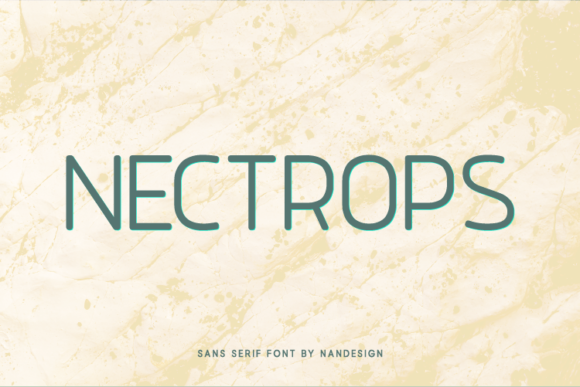
Nectrops Font: Elevate Your Design Projects with a Simple yet Stunning Sans Serif Font
In the world of typography, fonts play a crucial role in making or breaking a design project. A well-chosen font can elevate your project, making it more visually appealing and engaging for your audience. If you’re looking for a font that can add a touch of simplicity and elegance to your designs, look no further than Nectrops Font. In this article, we’ll explore the features and benefits of Nectrops, a simple and neat sans serif font that’s perfect for creating beautiful headings, gorgeous invitations, stunning logos, and more.
What is Nectrops Font?
Nectrops Font is a modern sans serif font designed to provide a clean and minimalist look to your design projects. Its simplicity and neatness make it an excellent choice for a wide range of applications, from headings and titles to logos and invitations. The font’s sleek lines and curves create a visually appealing aesthetic that’s sure to capture your audience’s attention.
Benefits of Using Nectrops Font
So, why choose Nectrops Font for your design projects? Here are just a few benefits of using this amazing font:
- Versatility: Nectrops Font is incredibly versatile, making it suitable for a wide range of design projects, from print materials like brochures and posters to digital applications like websites and social media graphics.
- Readability: The font’s clean and simple design ensures excellent readability, even at small sizes, making it perfect for body text and captions.
- Elegance: Nectrops Font adds a touch of elegance to your designs, making it ideal for creating stunning headings, titles, and logos.
- Easy to Pair: The font’s neutral design makes it easy to pair with other fonts, allowing you to create unique and harmonious typography combinations.
Creative Ways to Use Nectrops Font
Nectrops Font is an incredibly versatile font that can be used in a variety of creative ways. Here are some ideas to get you started:
- Headings and Titles: Use Nectrops Font to create stunning headings and titles that grab your audience’s attention.
- Logos and Branding: The font’s simplicity and elegance make it an excellent choice for creating logos and branding materials.
- Invitations and Events: Create beautiful invitations and event materials using Nectrops Font, adding a touch of sophistication and elegance to your designs.
- Websites and Digital Applications: Use Nectrops Font to create visually appealing website headers, buttons, and other digital elements.
Pairing Nectrops Font with Other Fonts
One of the benefits of using Nectrops Font is its ease of pairing with other fonts. Here are some tips for pairing Nectrops with other fonts:
- Serif Fonts: Pair Nectrops Font with serif fonts like Georgia or Merriweather to create a harmonious contrast between modern and traditional typography.
- Script Fonts: Combine Nectrops Font with script fonts like Pacifico or Great Vibes to add a touch of elegance and sophistication to your designs.
- Display Fonts: Pair Nectrops Font with bold display fonts like Arial Black or Impact to create a striking contrast between simple and complex typography.
Tips for Using Nectrops Font Effectively
Here are some tips for using Nectrops Font effectively in your design projects:
- Use it sparingly: Use Nectrops Font sparingly to create visual interest and emphasis in your designs.
- Experiment with sizes: Experiment with different font sizes to create visual hierarchy and add depth to your designs.
- Pay attention to line spacing: Pay attention to line spacing and adjust it accordingly to ensure optimal readability.
In conclusion, Nectrops Font is a simple yet stunning sans serif font that’s perfect for elevating your design projects. Its versatility, readability, elegance, and ease of pairing make it an excellent choice for a wide range of applications. Whether you’re creating headings, logos, invitations, or digital elements, Nectrops Font is sure to add a touch of sophistication and elegance to your designs.